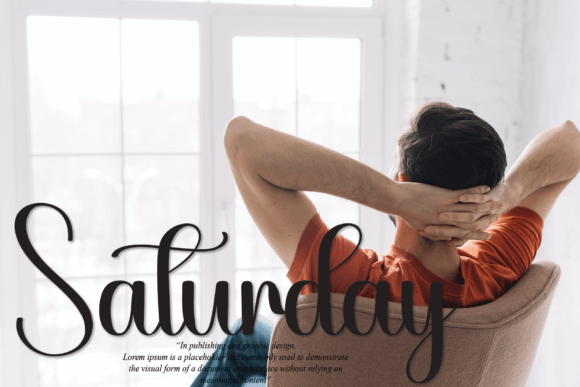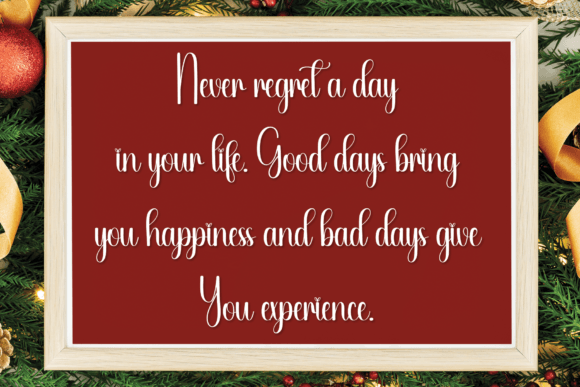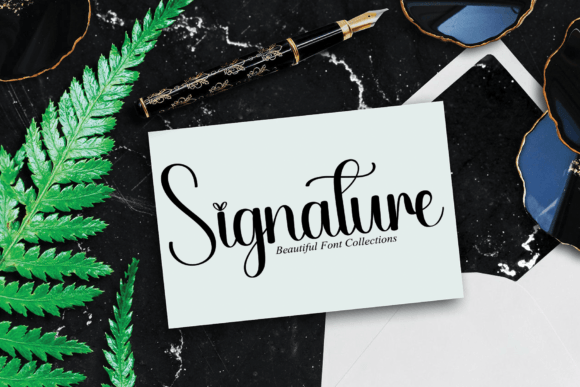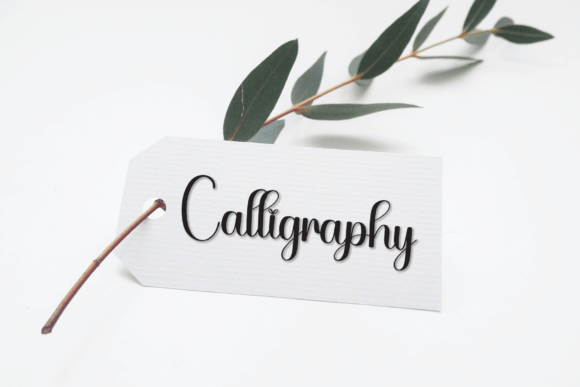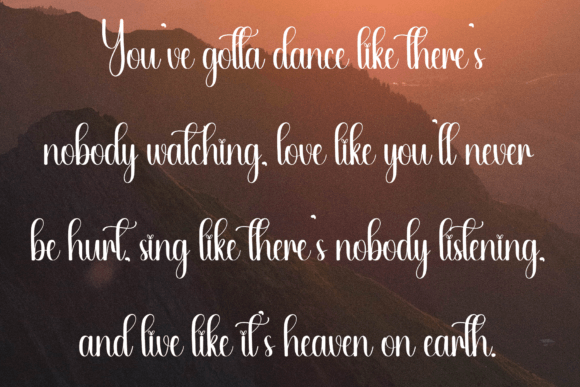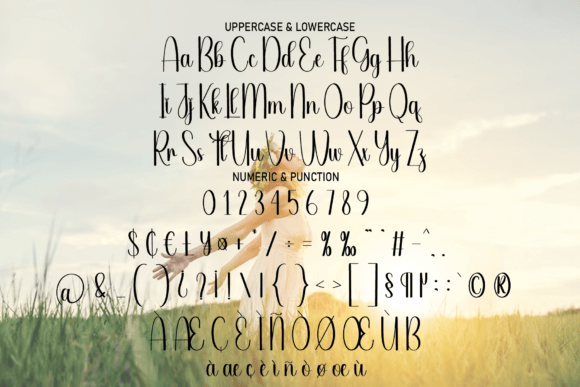
The Healing Touch of Handwritten Script
Have you ever been captivated by a beautifully crafted handwritten invitation, only to wish you could recreate that same magic for your own project? For designers, there’s nothing quite like the feeling of bringing a client’s vision to life with a unique and elegant touch. That’s exactly what the Healing Font aims to deliver – a sophisticated, handwritten script that adds a personal touch to any design.
As a versatile font, Healing Font is perfect for a wide range of applications, from wedding invitations and social media post logos to advertisements and product packaging. Its elegant design makes it an invaluable asset for any designer looking to add a touch of warmth and personality to their work.
Key Features of Healing Font
- Unique Characteristics: The Healing Font features a unique blend of modern and traditional design elements, with a focus on clean lines, geometric shapes, and soothing curves, making it perfect for use in therapeutic and wellness settings.
- Legibility and Readability: The font is carefully crafted to ensure optimal legibility and readability, with clear letterforms and generous spacing, making it suitable for use in a variety of contexts, from signage to digital displays.
- Emotional Connection: The Healing Font is designed to evoke feelings of calmness, serenity, and hope, making it an ideal choice for use in hospitals, clinics, and other healthcare settings where emotional support is crucial.
Healing Font Review
Overall, I have mixed feelings about the Healing Font. There are some great aspects to it, but also some areas that need improvement. ✨
- Unique Design: The font has a distinct, soothing aesthetic that could be perfect for therapeutic or wellness-related projects.
- High-Quality Rendition: The font renders well across different screen sizes and devices.
- Professional Appearance: It looks polished and refined, which is great for branding and design projects.
- Limited Character Set: The font only includes basic Latin characters, which might be restrictive for international projects.
- Difficulty with Customization: The font’s design makes it challenging to create custom variations or derivatives.
- Lack of Expressiveness: The font’s rounded and soft features might make it less suitable for projects requiring bold or dynamic typography.
The Healing Font is a beautiful, high-quality font that excels in certain areas. However, its limitations and restrictions might make it less versatile for some designers. If you’re working on a project that requires a soothing, professional, and polished aesthetic, this font might be a great choice. But if you need more flexibility or international character support, you might want to consider other options.
Use the Healing Font to create a soothing and calming atmosphere in your designs. It’s perfect for wellness-related themes, meditation, and relaxation.
Experiment with different font sizes and colors to create a unique and personalized look.
Combine the Healing Font with other calming elements, such as nature-inspired graphics and soft colors, to create a peaceful and serene design.